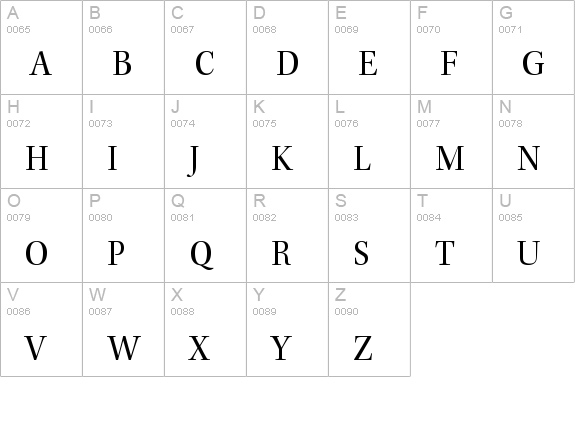
Kepler Std Semicondensed Subhead Font Details
Kepler Std Semicondensed Subhead font is a visually striking and modern typeface that seamlessly blends elegance with functionality. With its condensed structure and refined letterforms, this font is perfect for creating impactful subheadings and headlines that demand attention. The clean and crisp lines of Kepler Std Semicondensed Subhead font exude professionalism and sophistication, making it an excellent choice for a wide range of design projects. Whether it's for branding materials, editorial layouts, or digital presentations, this font effortlessly adds a touch of class and refinement. One of the greatest advantages of Kepler Std Semicondensed Subhead font is its versatility. It can be used across various industries and design styles, adapting to different contexts while maintaining its unique personality. Its legibility and readability ensure that your message will be conveyed effectively, even in small sizes or challenging backgrounds. And the best part? Kepler Std Semicondensed Subhead font is freely available to download at FontsMarket.com. This means that you can easily access this exceptional font and incorporate it into your design projects without any cost. Simply visit FontsMarket.com, find Kepler Std Semicondensed Subhead font, and start exploring its endless possibilities. With Kepler Std Semicondensed Subhead font, you can elevate your designs and make a lasting impression. Its sleek and modern aesthetic combined with its free availability makes it a valuable asset for any designer or creative professional. Discover the power of Kepler Std Semicondensed Subhead font today and take your designs to new heights of excellence.